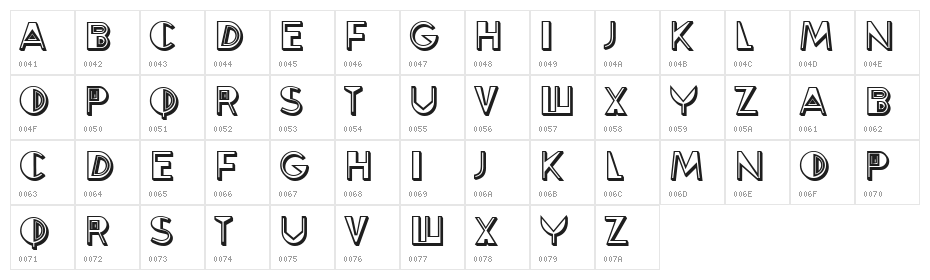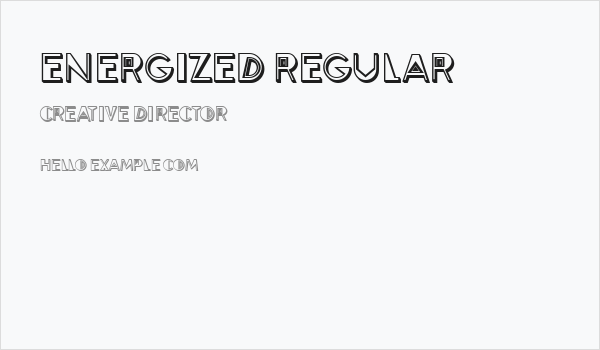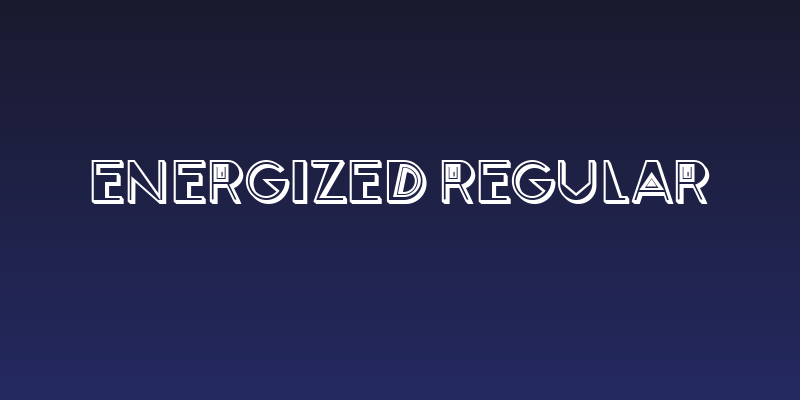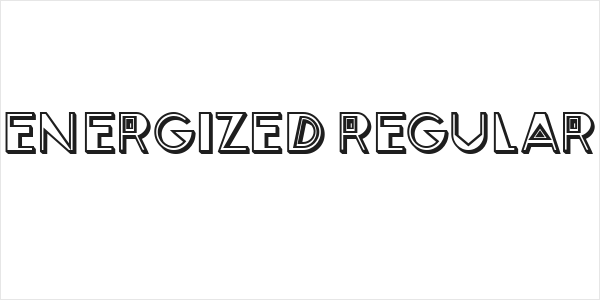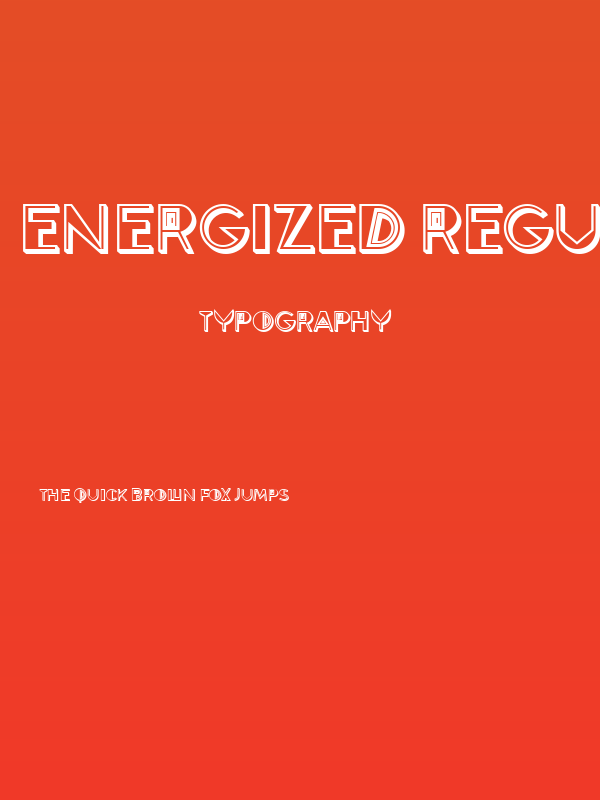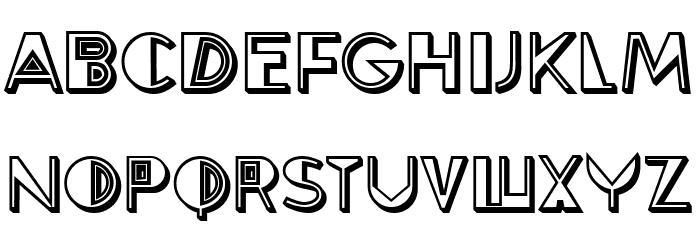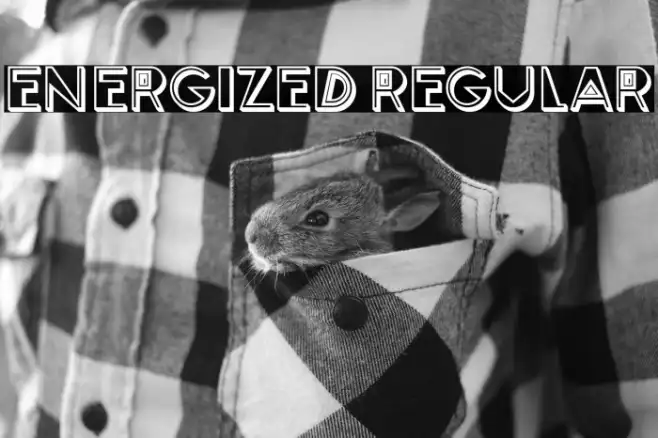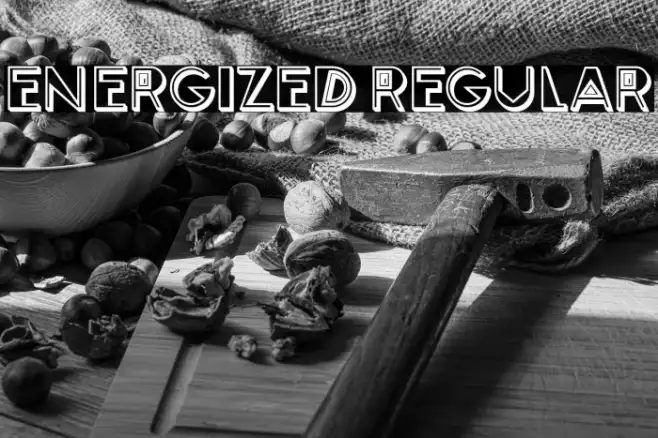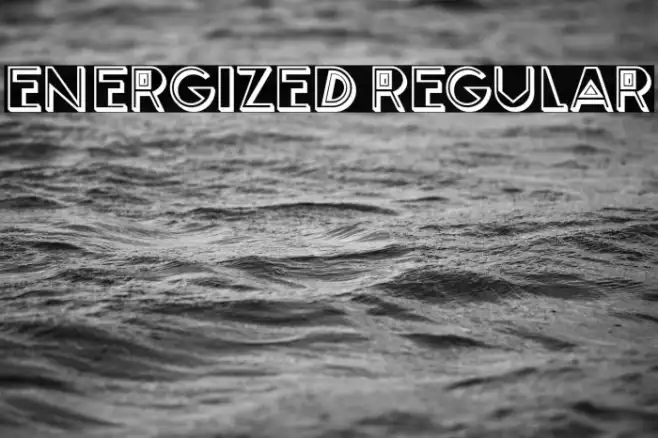
Energized Regular Font
Energized Regular Description
This font features a bold, geometric design with a distinct outline style. Each character is crafted with precision, showcasing a modern and futuristic aesthetic. The uppercase letters are particularly striking, with sharp angles and clean lines that create a sense of energy and movement. The font's unique style is further emphasized by its hollow interior, giving it a three-dimensional appearance. This design choice adds depth and visual interest, making it ideal for eye-catching displays. The characters are evenly spaced, ensuring readability while maintaining a cohesive look. Overall, this font is perfect for projects that require a contemporary and dynamic feel.
| Proposed Projects | Ideal for branding, posters, headlines, and any project needing a modern, energetic look. |